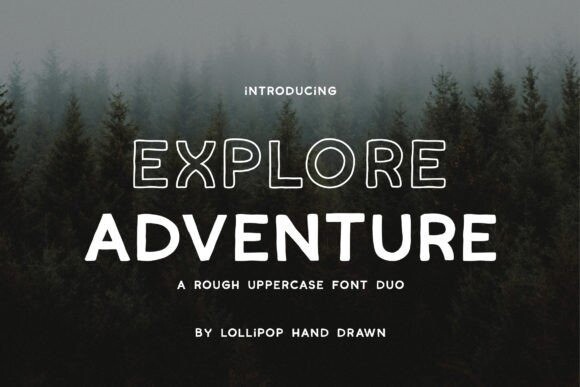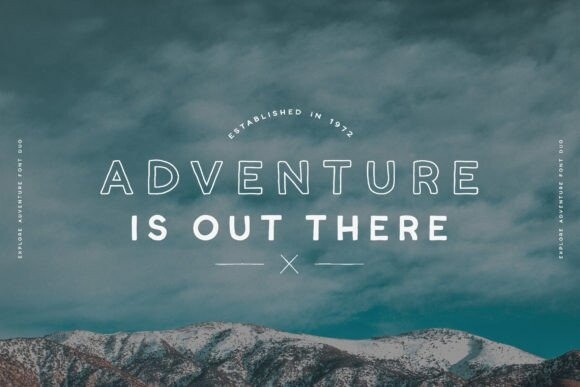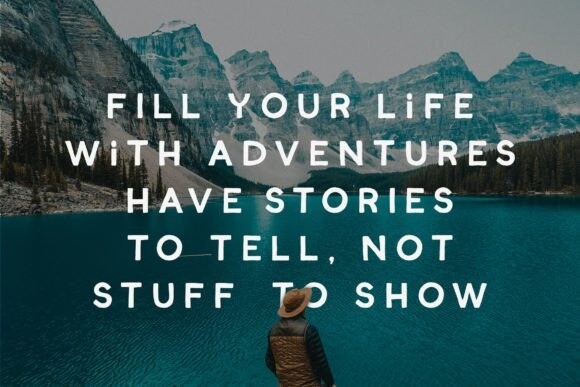
Explore Adventure Font
Explore Adventure is a modern and cool sans serif font. Fall in love with its incredibly distinct and timeless style and use it to create spectacular designs!